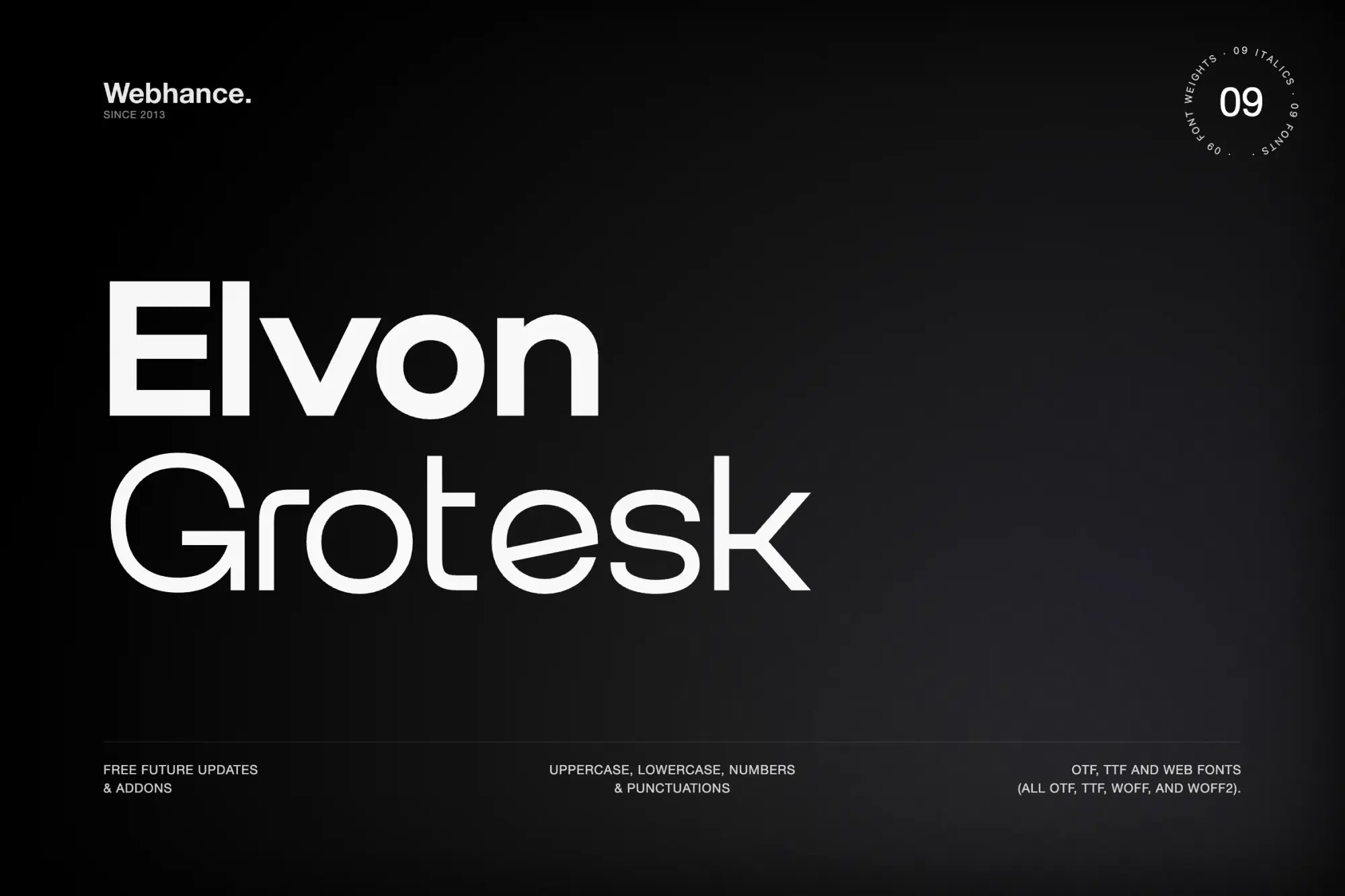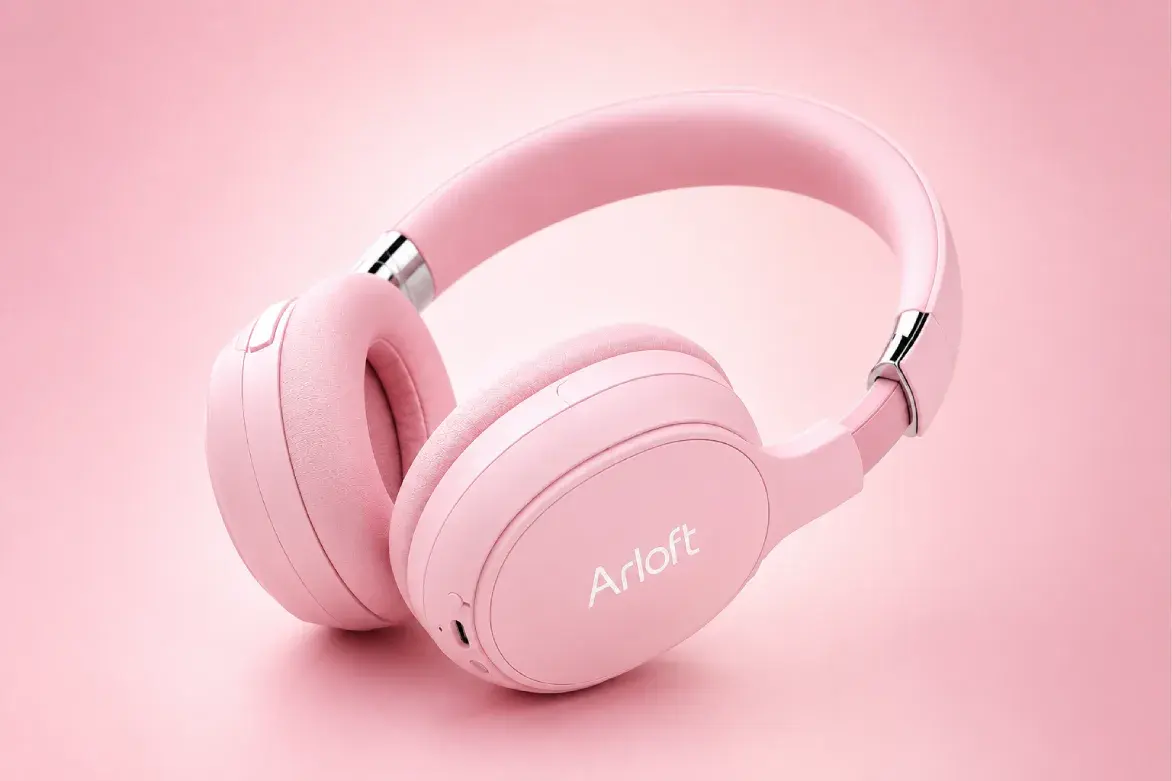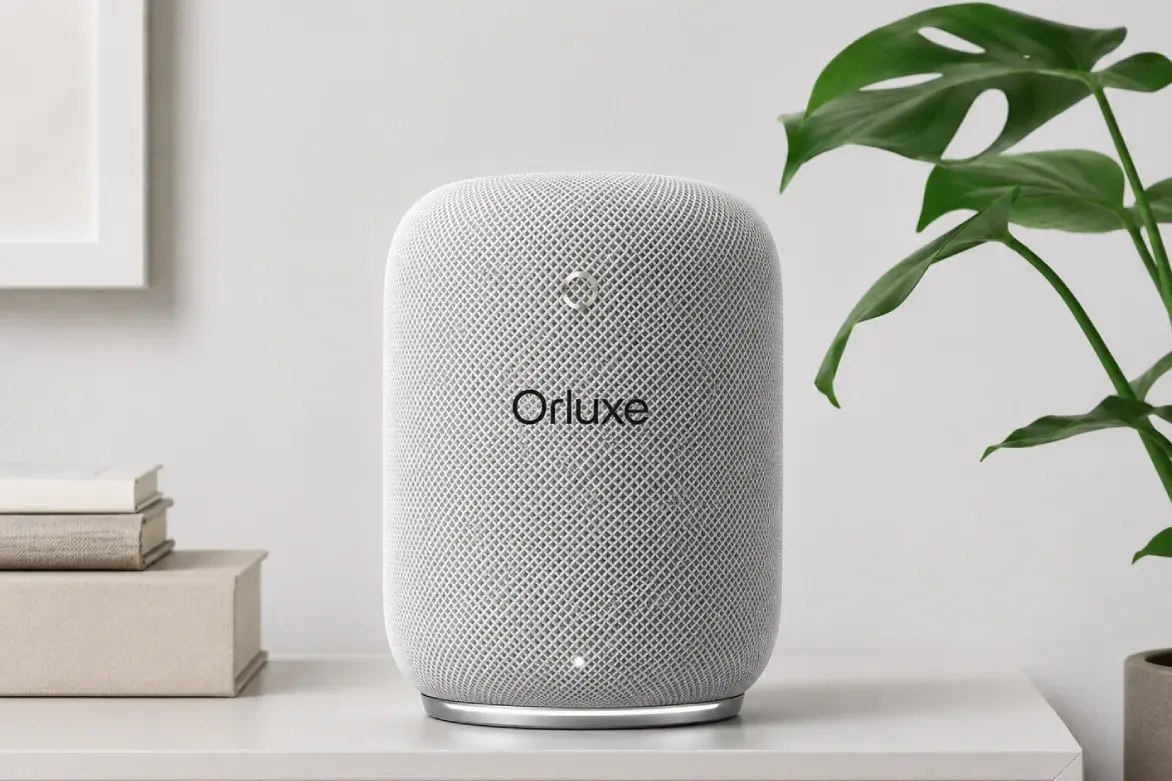
Elvon Grotesk
Overview
Elvon Grotesk is a modern sans-serif font that embodies a clean and versatile aesthetic. Ideal for branding and marketing, it enhances digital content across various platforms. With its balanced proportions, Elvon Grotesk ensures clarity and legibility, making it a perfect choice for social media graphics, logos, and more.
Design Traits
- Geometric forms create a contemporary look.
- Generous spacing promotes readability.
- Neutral tone fits various design contexts.
- Versatile for both large displays and small text.
Key Features
- Multiple weights and italics available.
- Extensive character support for multiple languages.
- Optimized for print and screen performance.
Best Use Cases
- Branding: Craft memorable logos and identity systems.
- Marketing: Create impactful promotional materials.
- Digital Media: Enhance posts for social media platforms like Instagram and YouTube.
- Websites: Improve readability in online content.
Why Designers Choose Elvon Grotesk
- Modern grotesk style enhances visual appeal.
- Versatile for a range of applications.
- Easy to pair with other typefaces.
- Supports diverse branding needs.
- Excellent legibility improves user engagement.